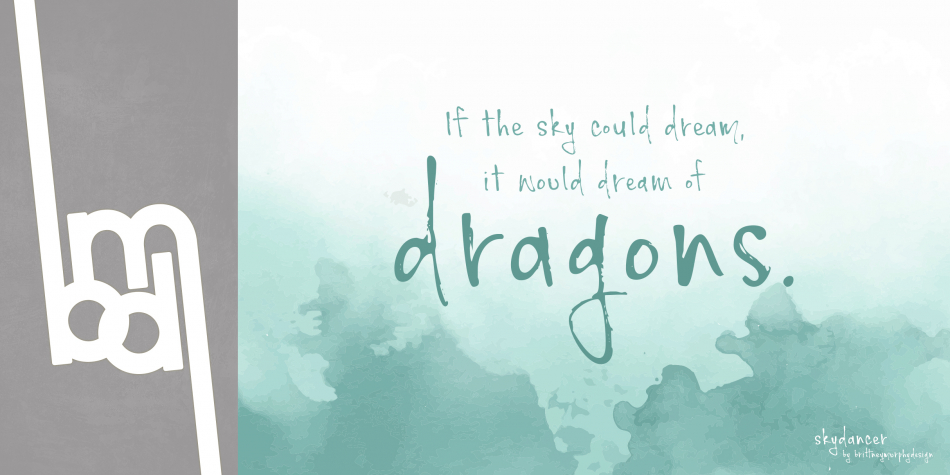
Skydancer is a hand drawn font published by Brittney Murphy Design.
Skydancer is an introspective handwritten font with alternates and ligatures. It was designed with a dry marker to give it extra hand-drawn detail and lots of character.
Includes alternates for a-z and A-Z, plus 10 ligatures (bb, dd, ee, ff, ft, gg, ll, rr, ss, tt).
The font has 500+ characters, including extended latin, and basic Greek and Cyrillic.